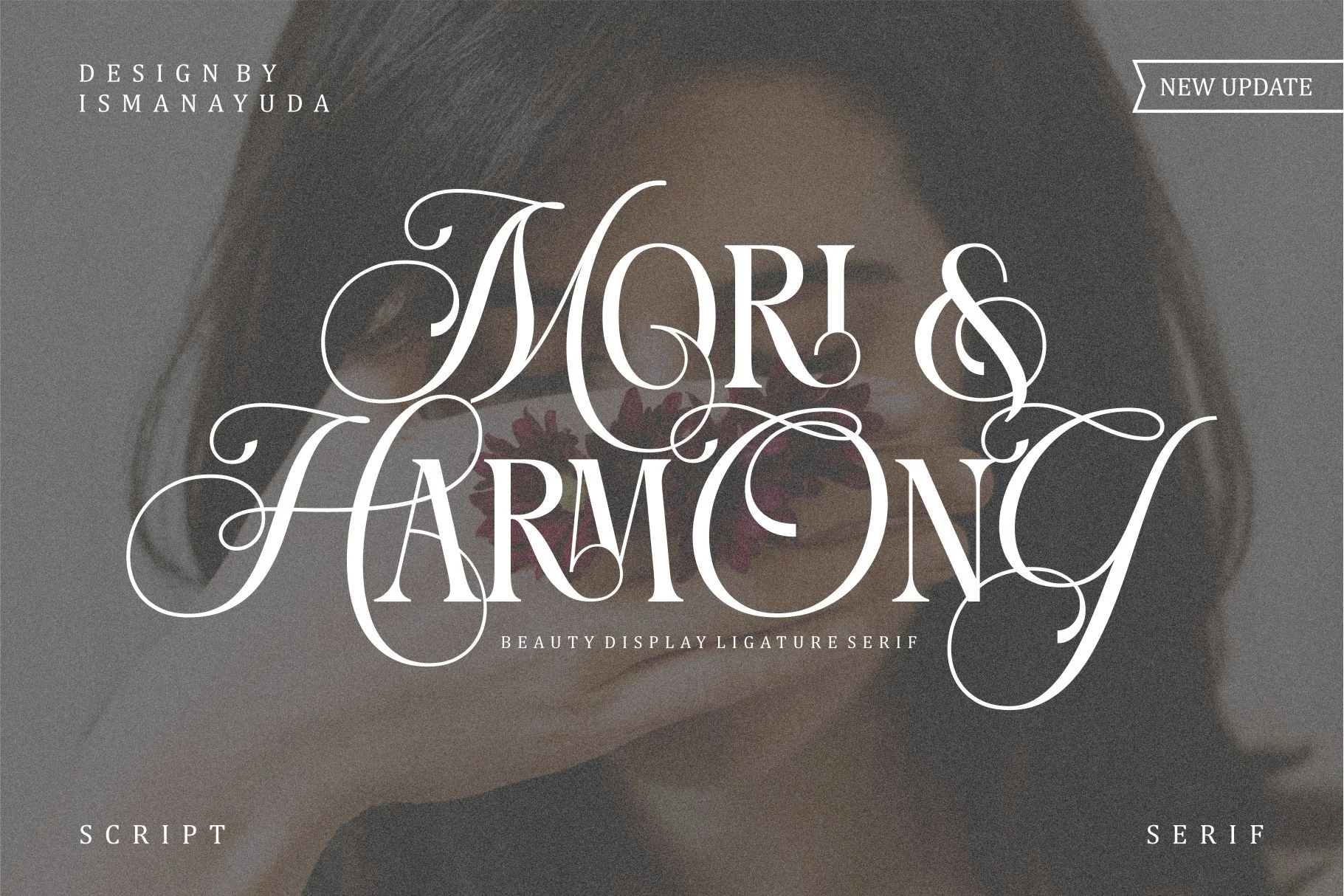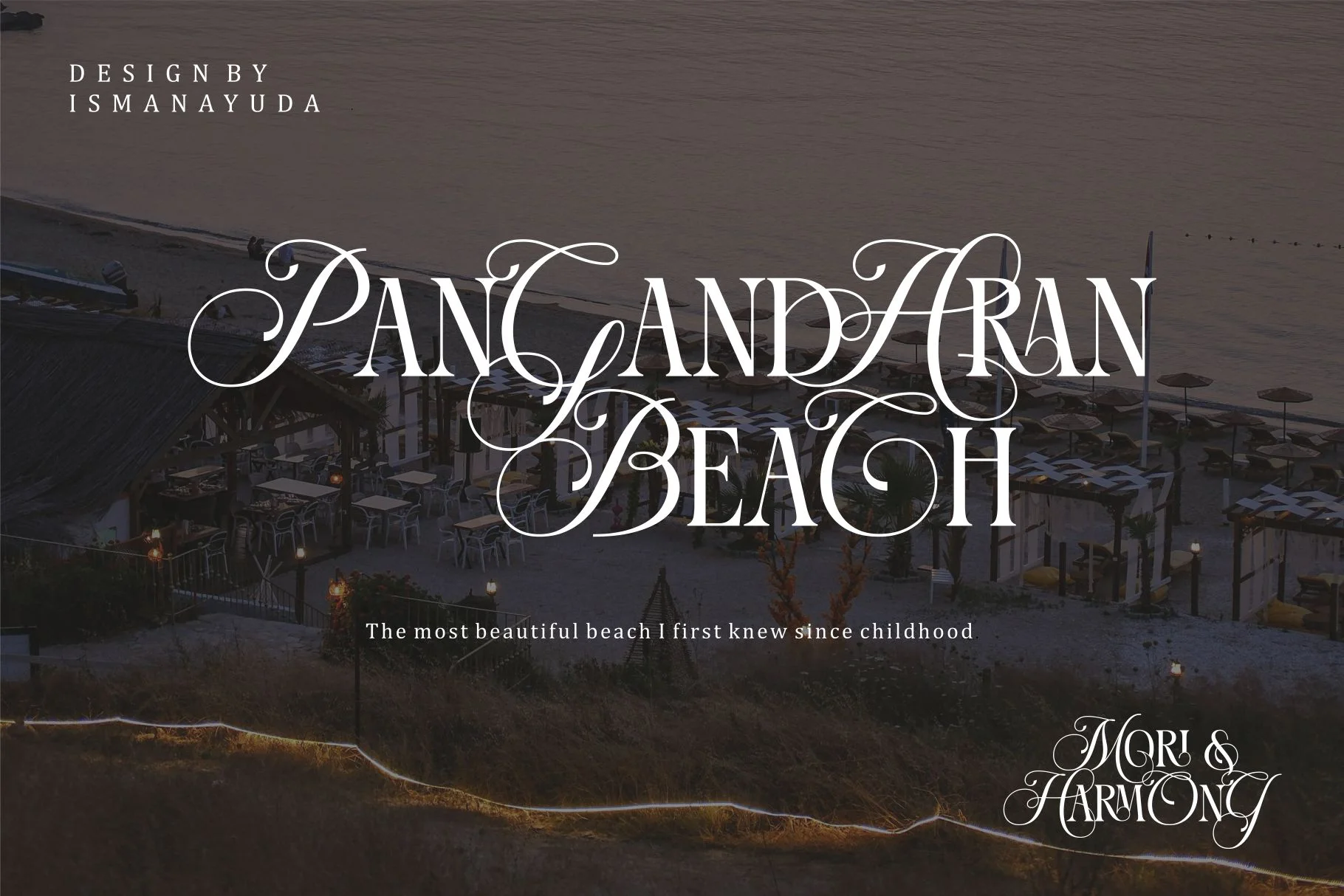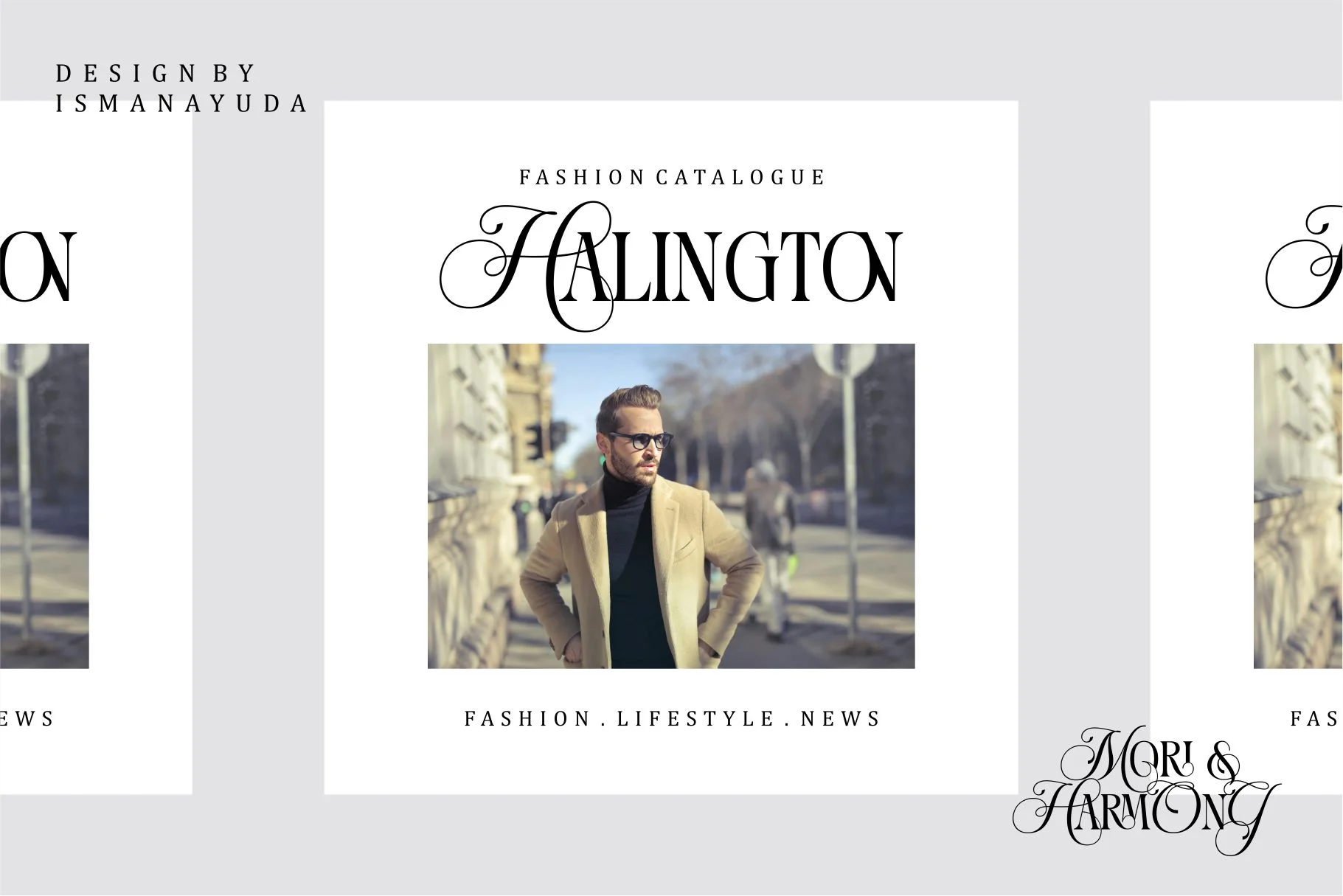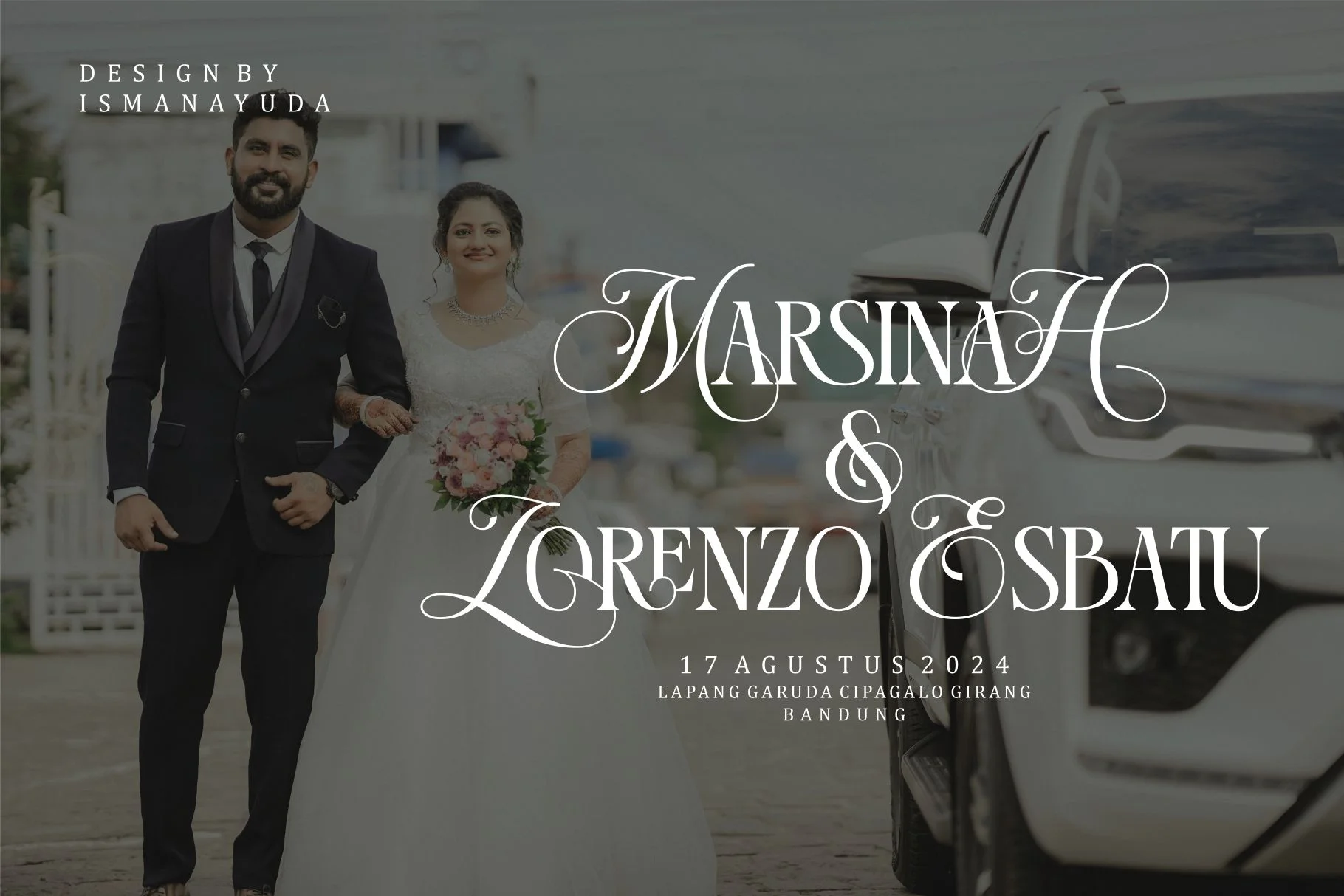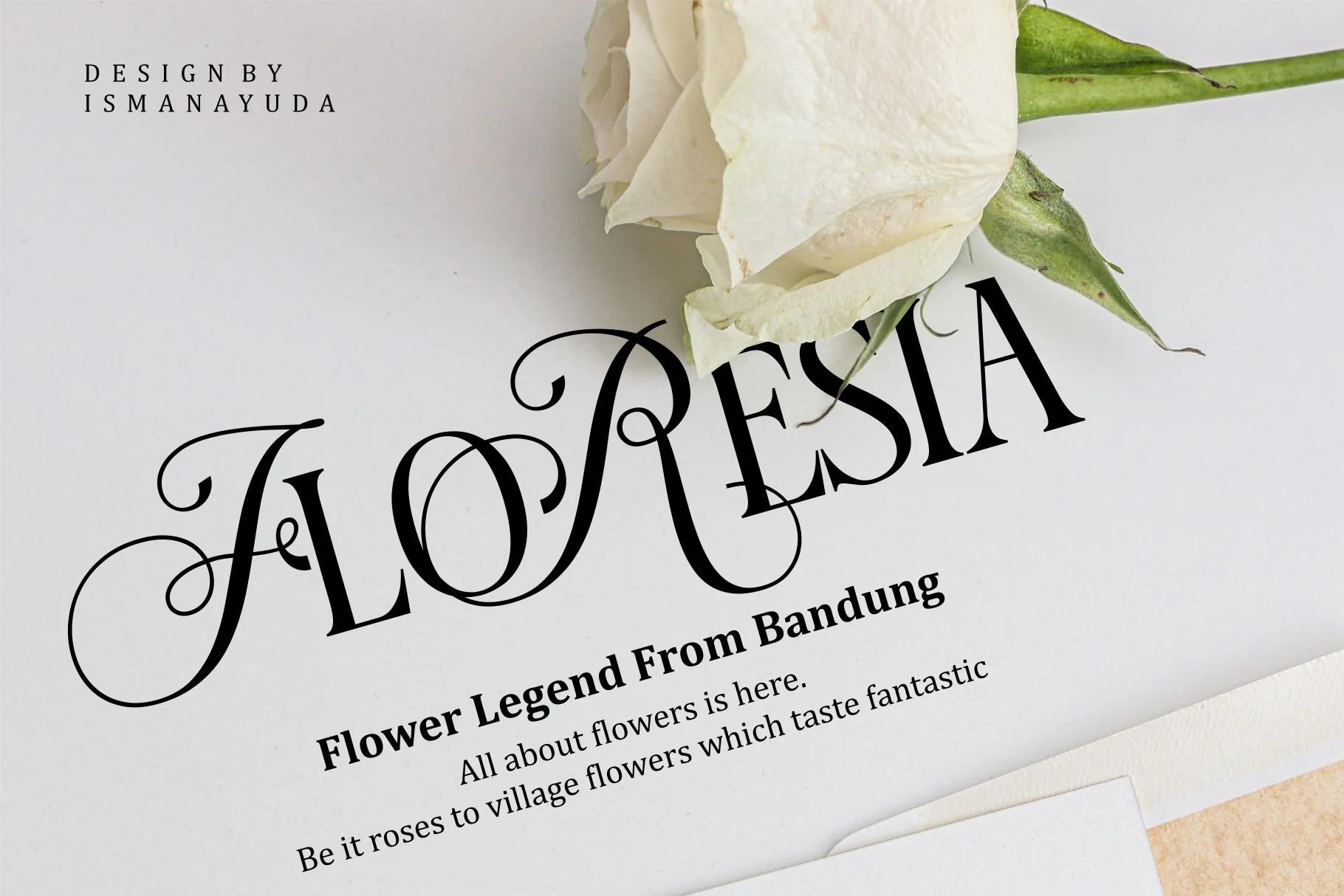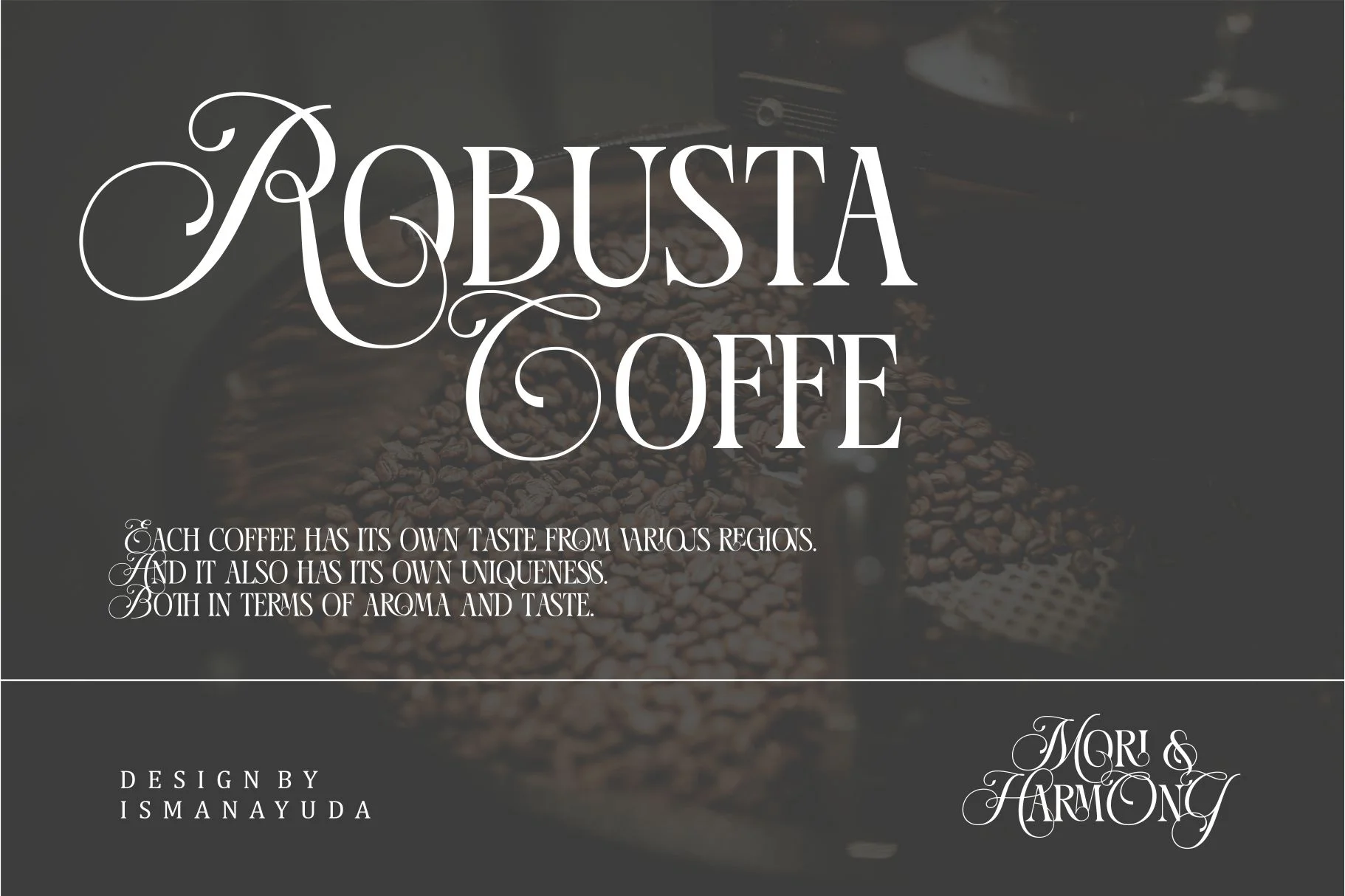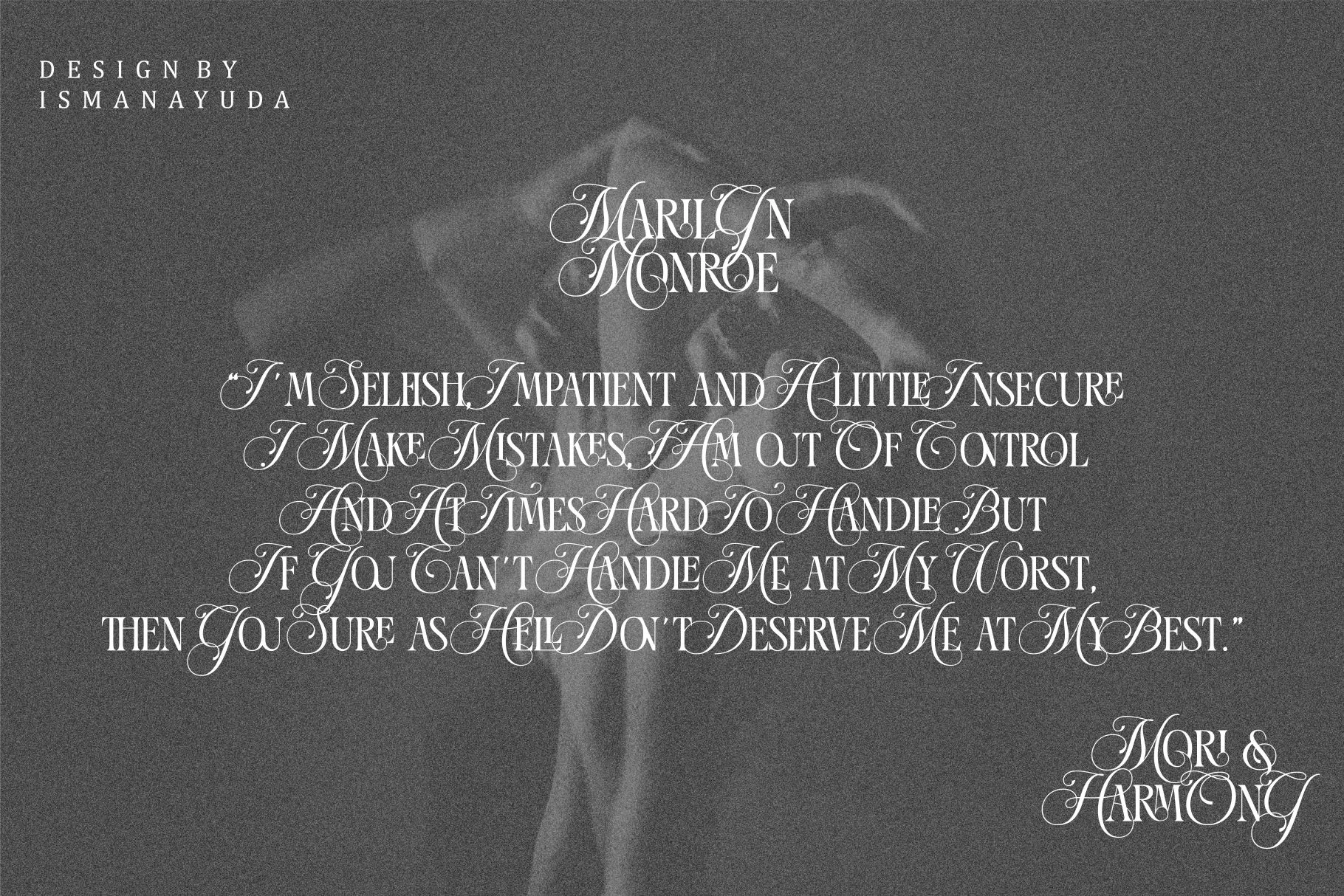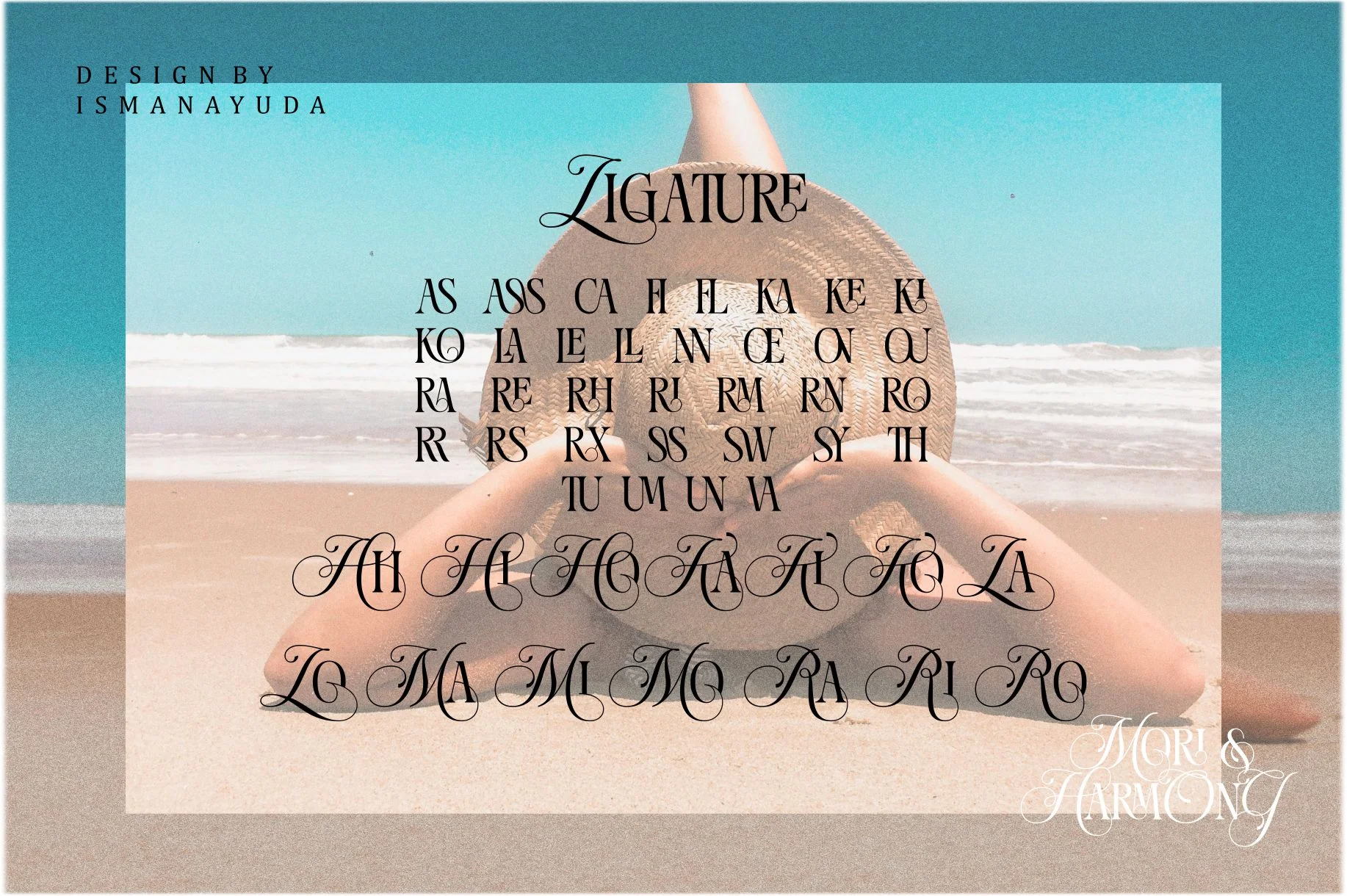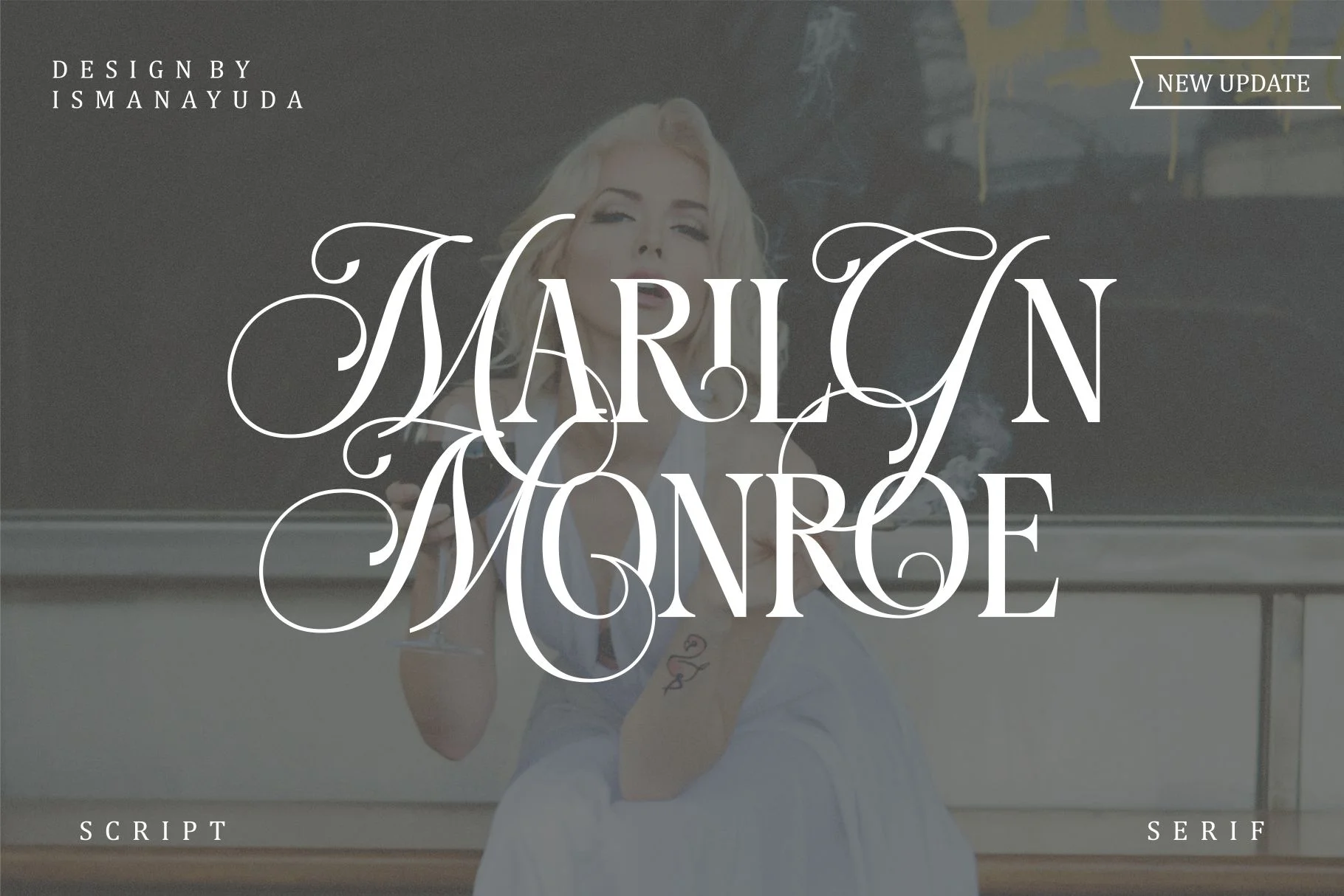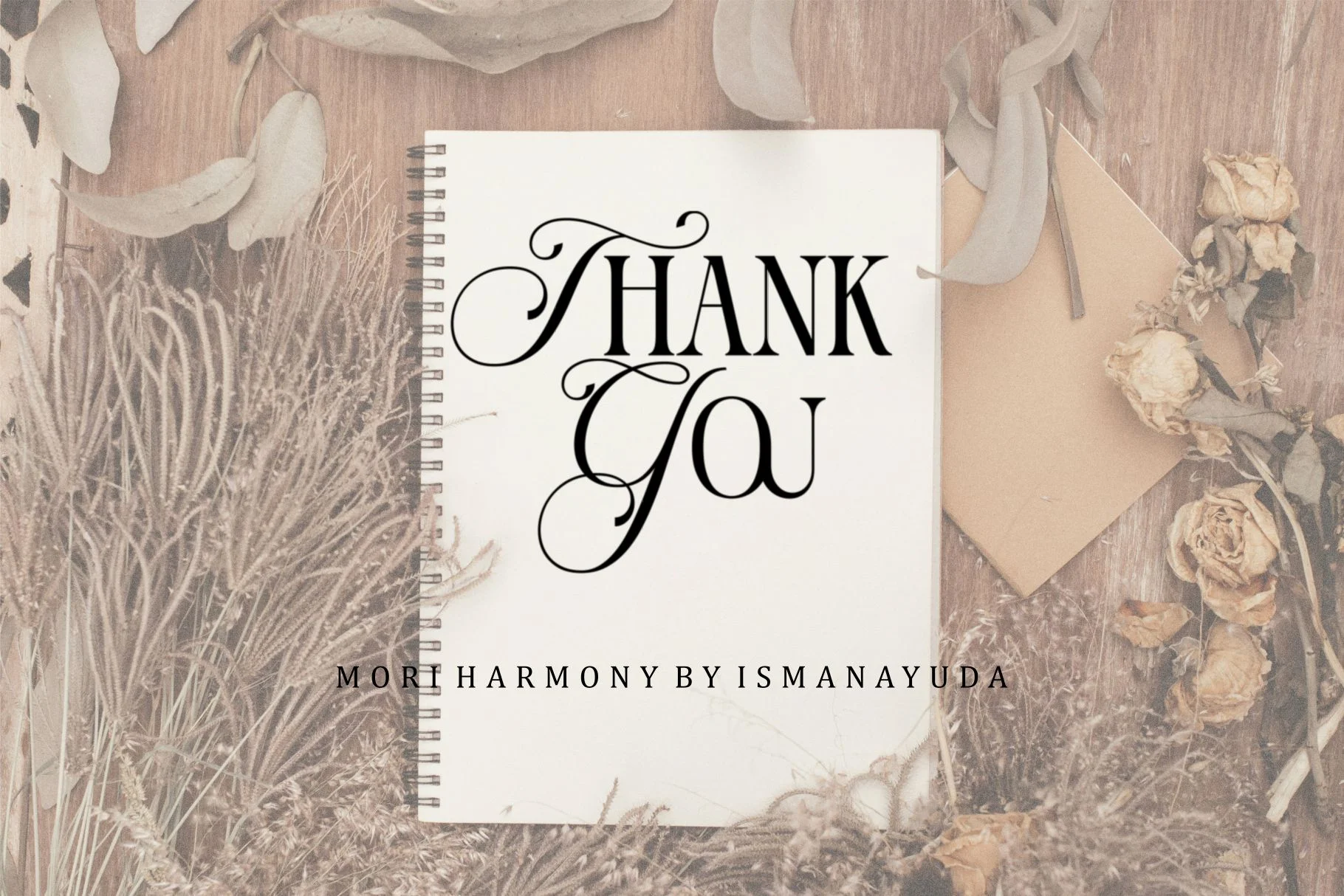
Mori Harmony
Mori Harmony is a unique hybrid typeface that combines serif nuances with script or italic uppercase letters. This blend creates a distinctive, elegant look that stands out in display settings. A key feature of this font is its extensive collection of unique ligatures, available for both uppercase and lowercase combinations, which allow for a highly customized and artistic flow. It is specifically categorized as a Beauty Display Ligature Serif, making it an ideal choice for luxury branding, editorial layouts, wedding invitations, and boutique shop signage.